10 Best Elegant Serif Font 2025
In 2025, typography remains at the heart of effective visual communication, and the serif font continues to thrive with renewed sophistication and charm. Designers are turning to elegant serif font 2025 options to bring a touch of classic refinement to modern projects—whether for branding, editorial layouts, websites, or luxury packaging. With high contrast strokes, graceful curves, and a balance of readability and style, these fonts elevate content while expressing professionalism and beauty.
10 Best Elegant Serif Font 2025
In this article, we present the 10 best elegant serif font 2025 selections that define this year’s top trends in refined typography.
1. Luminary Serif Elegant Serif Family Font
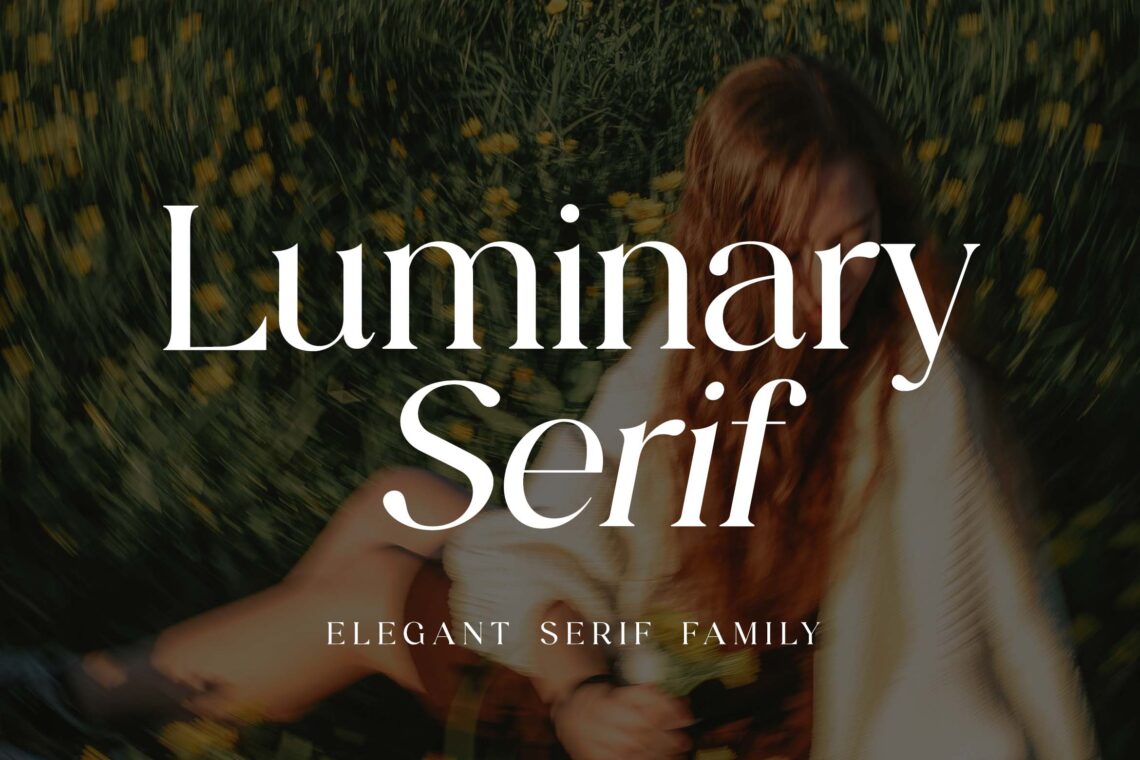
Luminary Serif is an elegant serif font family that embodies sophistication and timeless beauty, making it an ideal choice for a wide range of design projects. With its carefully crafted letterforms, Luminary Serif offers a harmonious blend of classic and contemporary styles, ensuring readability while adding a touch of refinement to any text. This versatile font family includes multiple weights and styles, allowing designers to create stunning typographic compositions for branding, editorial design, invitations, and more. Whether used for headlines or body text, Luminary Serif elevates the aesthetic of any project, making it a must-have addition to your font collection.
2. Zamoneva Elegant Serif Display Font
Zamoneva Elegant Serif Display Font is a refined and stylish typeface that combines classic serif elegance with modern design sensibilities. Perfectly suited for headlines, branding, invitations, and editorial projects, Zamoneva captivates with its graceful curves and distinctive character details. This font enhances any creative work by adding a sophisticated and timeless touch, making it an excellent choice for designers seeking to elevate their visual communications with a touch of elegance and class.
3. Renatupath Elegant Serif Family
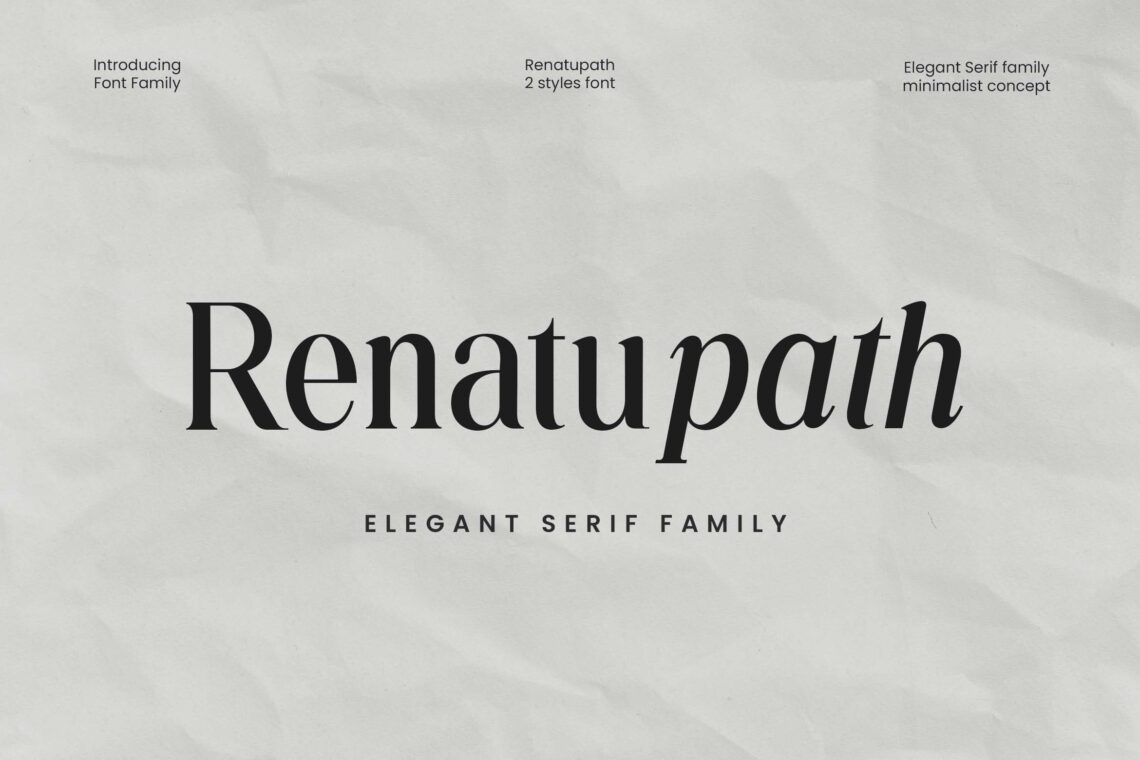
Renatupath Elegant Serif Family is a beautifully crafted typeface that embodies sophistication and versatility, making it an ideal choice for a wide range of design applications. With its exquisite serifs and refined letterforms, this font family offers a harmonious blend of classic elegance and contemporary style, ensuring readability and aesthetic appeal. Available in multiple weights and styles, Renatupath allows designers to create stunning typographic compositions for branding, editorial layouts, invitations, and more. Whether used for headlines or body text, Renatupath Elegant Serif Family adds a touch of luxury and charm to any project, making it a valuable addition to your font collection.
4. Agnostic Grace Elegant Serif Font
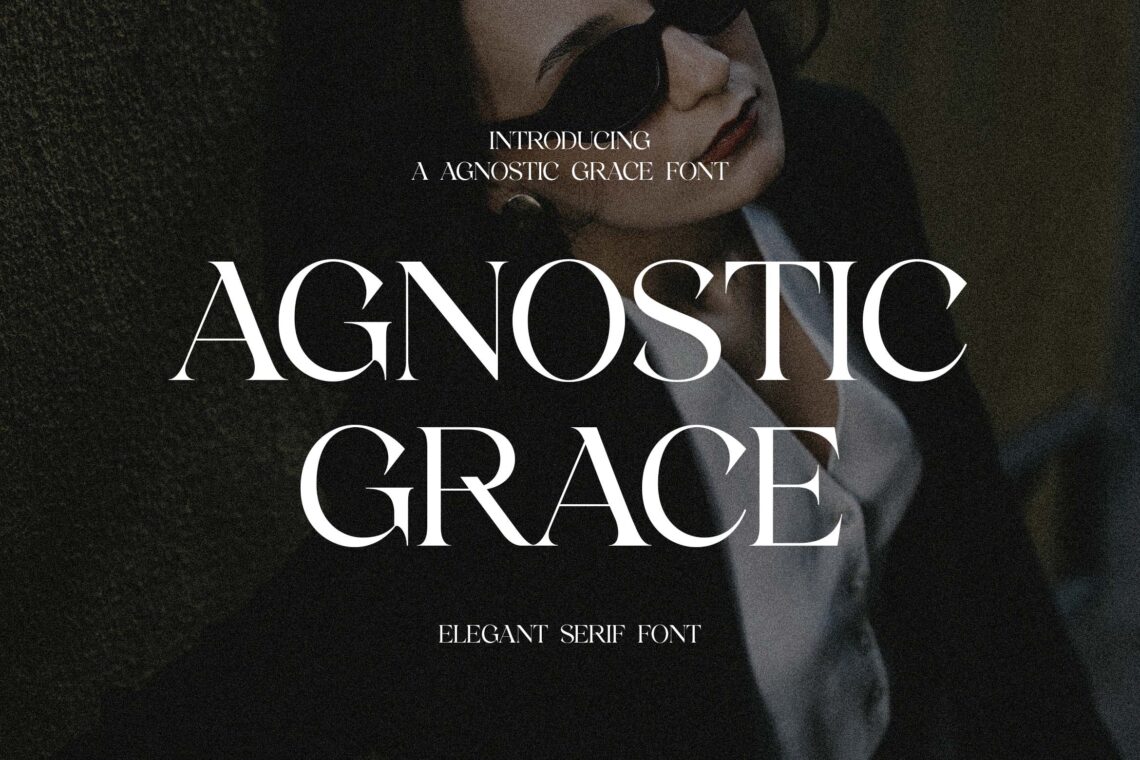
Agnostic Grace Elegant Serif Font is a sophisticated and graceful typeface designed to bring a timeless elegance to any design project. With its delicate serifs and smooth curves, this font balances classic charm with modern refinement, making it perfect for branding, editorial work, invitations, and more. Its versatile style ensures excellent readability while adding a touch of sophistication and warmth, making Agnostic Grace an indispensable choice for designers seeking to elevate their visual communications with elegance and poise.
5. Biconvex Elegant Serif Font
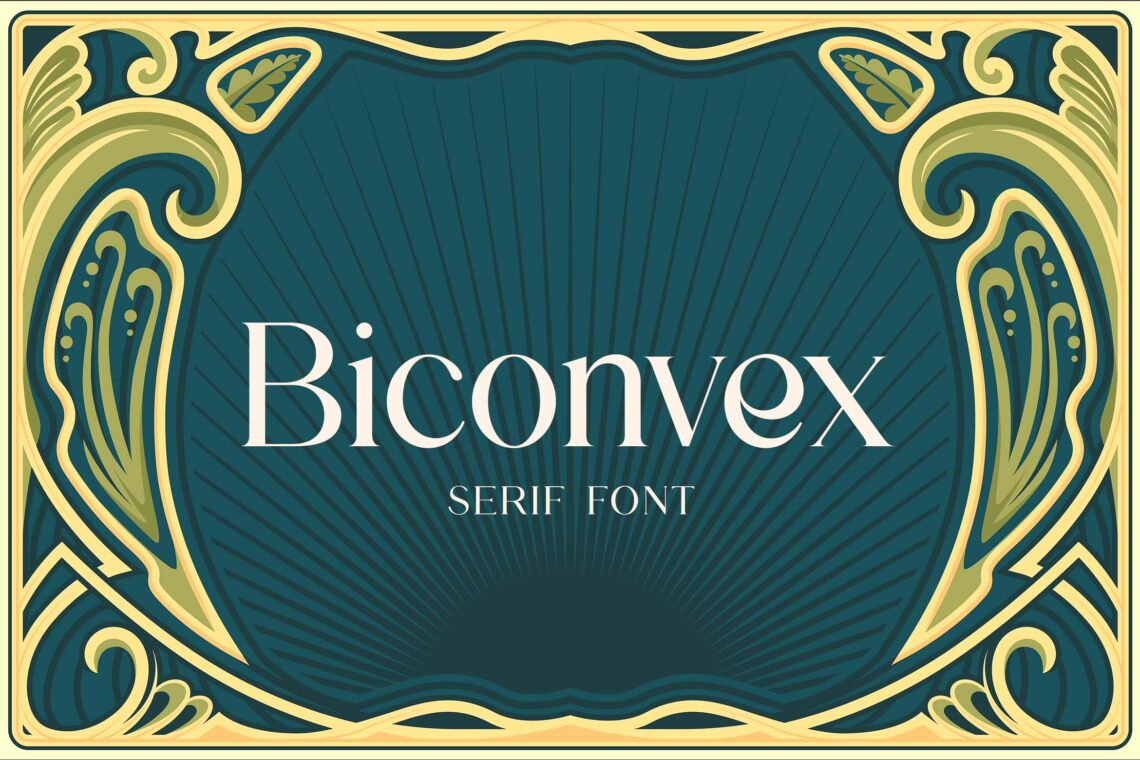
Biconvex Elegant Serif Font is a striking typeface that combines modern aesthetics with classic serif elements, making it an exceptional choice for a variety of design projects. Its unique biconvex letterforms create a sense of depth and sophistication, ensuring that your text stands out with elegance and clarity. Perfect for branding, editorial design, invitations, and more, Biconvex adds a refined touch to any visual communication. With its harmonious balance of style and readability, this font is an essential addition to any designer’s toolkit, allowing for the creation of captivating and memorable typographic compositions.
6. Microquake Modern Elegant Serif Display Font
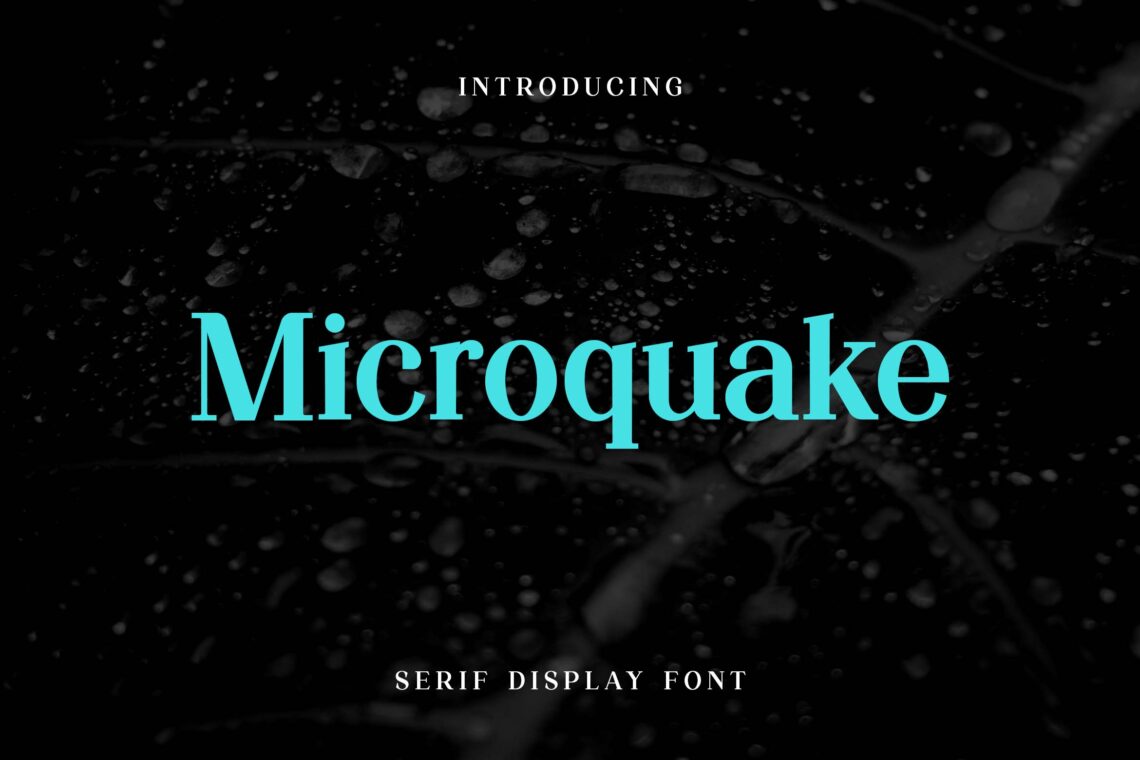
Microquake Modern Elegant Serif Display Font is a contemporary typeface that seamlessly blends modern design with classic serif sophistication. Featuring sharp details and refined curves, Microquake is perfect for making bold statements in headlines, branding, editorial layouts, and creative projects. Its elegant yet striking style enhances visual appeal while maintaining readability, making it an ideal choice for designers seeking a font that offers both versatility and a distinctive character. Elevate your design work with Microquake’s unique combination of modern edge and timeless elegance.
7. Engraved Classic Elegant Serif Font
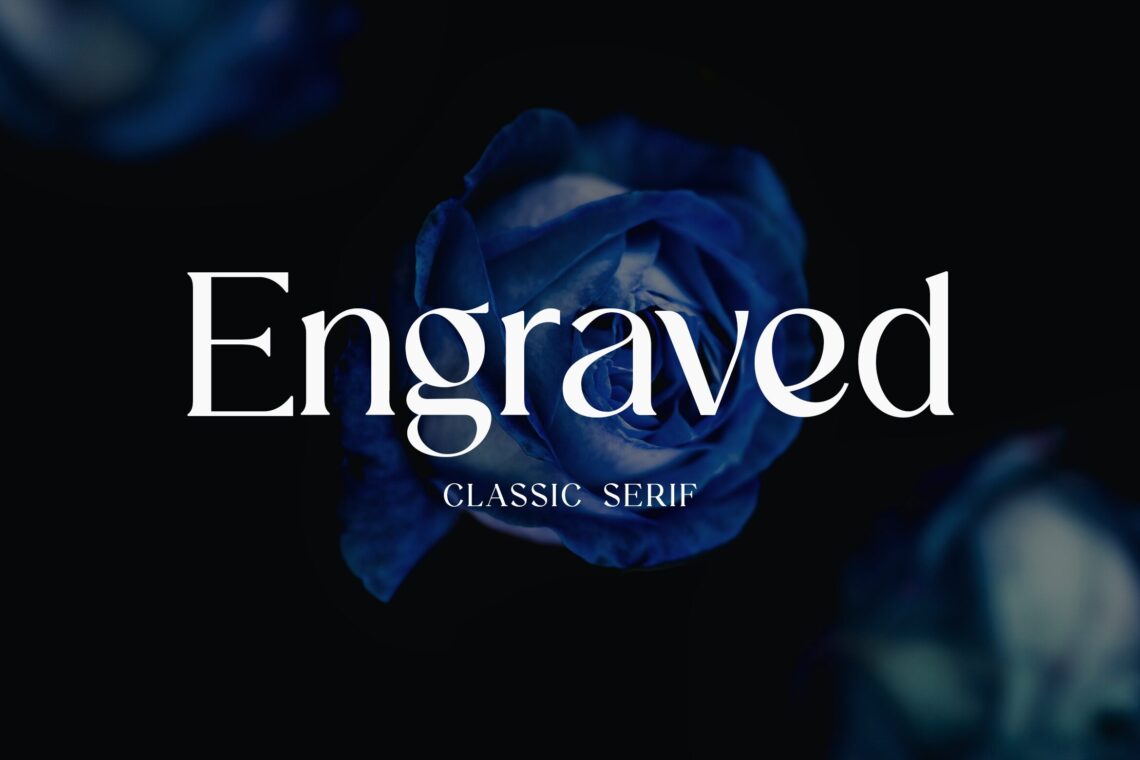
Engraved Classic Elegant Serif Font is a timeless typeface that exudes sophistication and refinement through its intricately detailed letterforms. Inspired by traditional engraving techniques, this font combines classic serif features with elegant strokes to create a luxurious and distinguished look. Perfect for upscale branding, invitations, editorial designs, and formal projects, it delivers both readability and a sense of heritage. Engraved Classic adds a touch of elegance and prestige to any design, making it an essential asset for designers seeking to evoke tradition and class in their work.
8. Granodipta Classic Elegant Serif Font
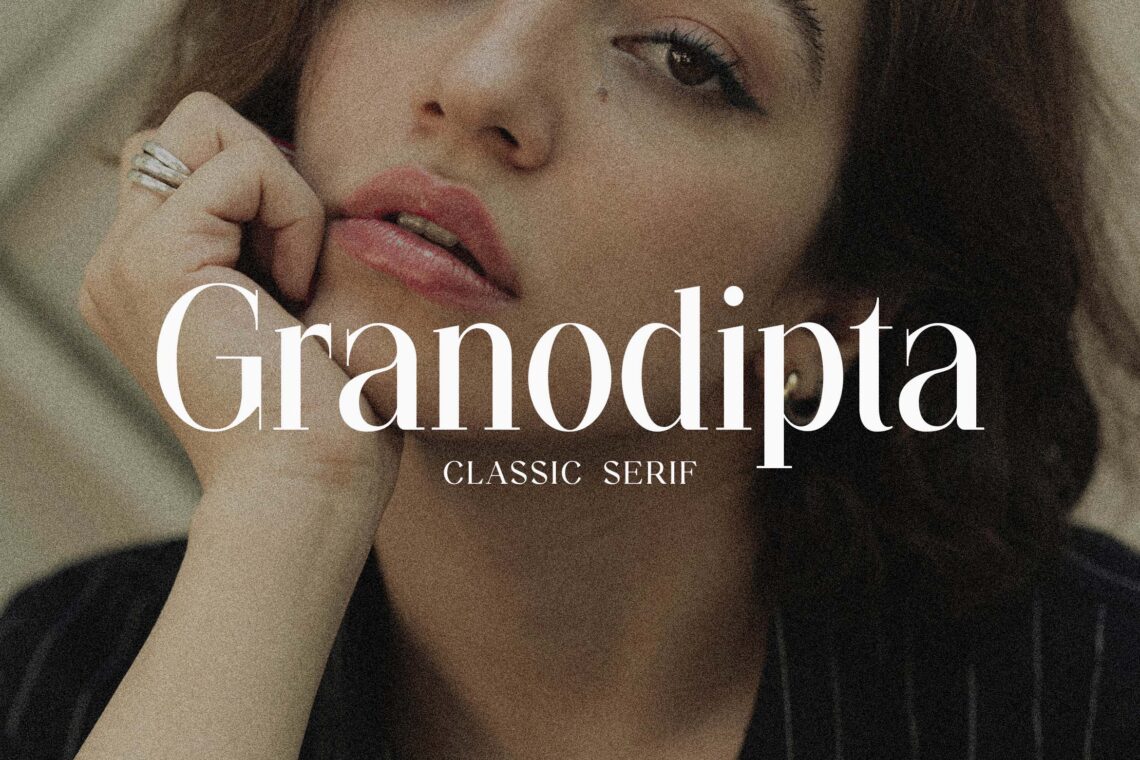
Granodipta Classic Elegant Serif Font is a beautifully crafted typeface that captures the timeless charm of classic serif typography with a refined and elegant touch. Its well-balanced letterforms and graceful curves make it ideal for a wide range of design projects, including branding, editorial layouts, invitations, and more. This font combines traditional sophistication with modern versatility, ensuring both readability and aesthetic appeal. Granodipta Classic Elegant Serif Font adds a distinguished and polished look to any creative work, making it a valuable addition to any designer’s font collection.